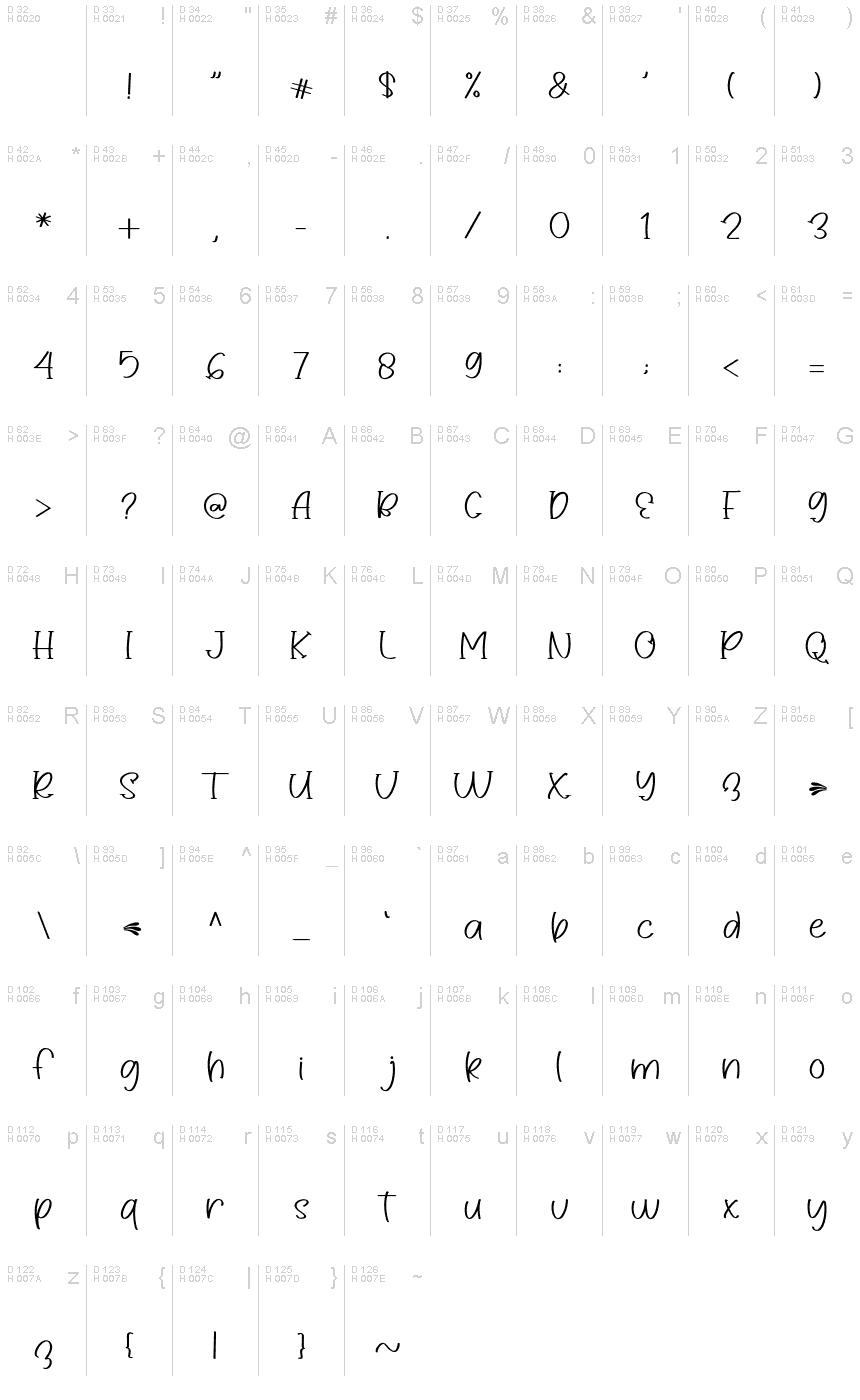
Katybell
Katybell is a charming handwritten font designed by Erlina Graphic. Its light weight adds a delicate touch to any project, while its playful curves create a friendly and approachable feel. This font is perfect for invitations, greeting cards, and social media graphics that require a personal touch. Katybell's authentic handwriting style is also suitable for branding projects that aim to showcase sincerity and warmth. Whether you're designing for weddings, lifestyle blogs, or small businesses, Katybell will elevate your designs with its unique personality and character.